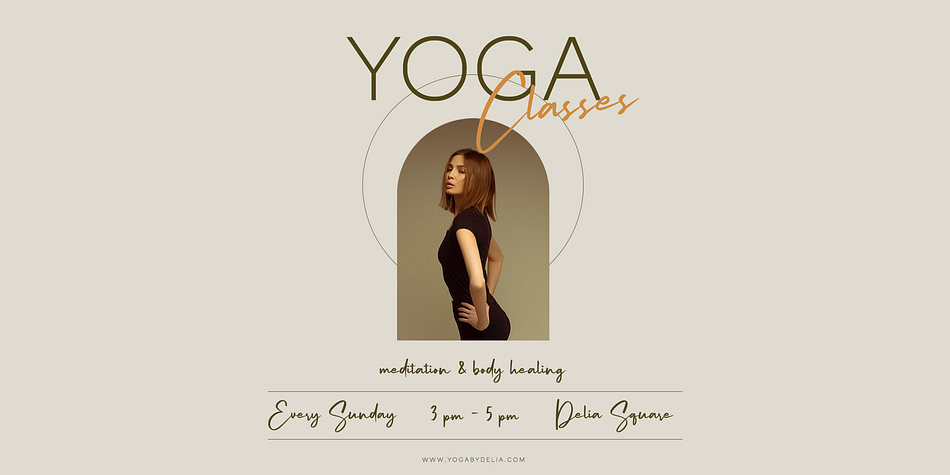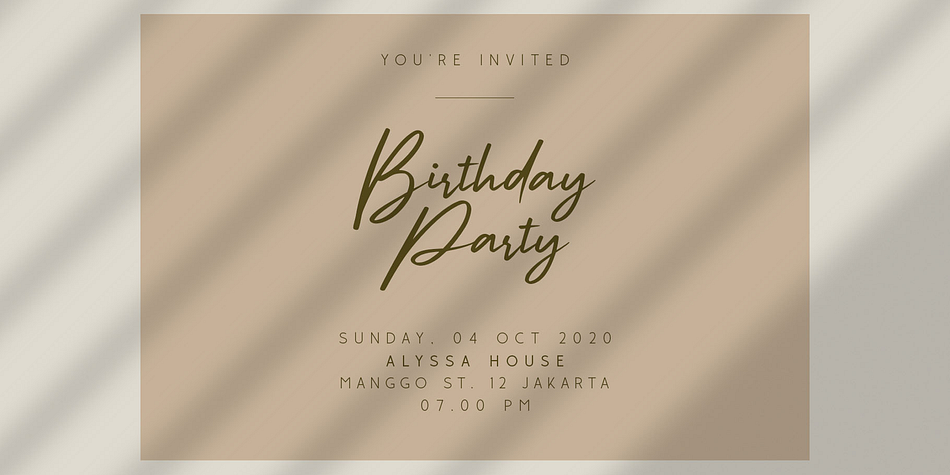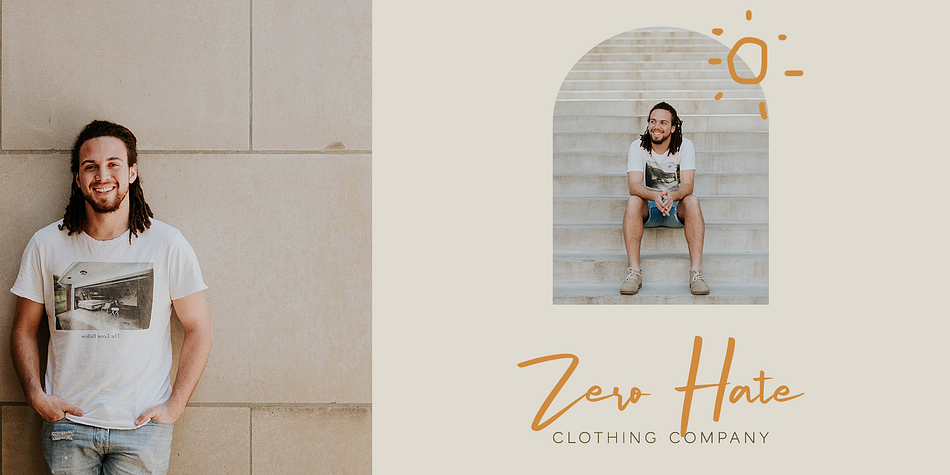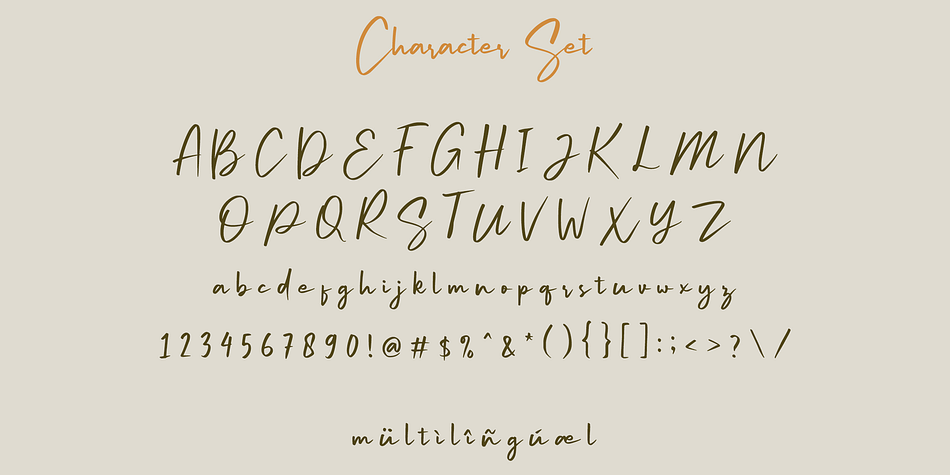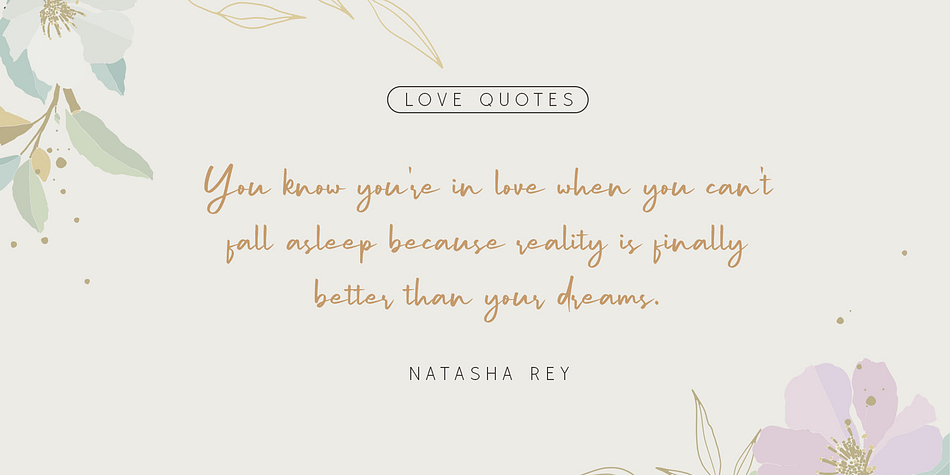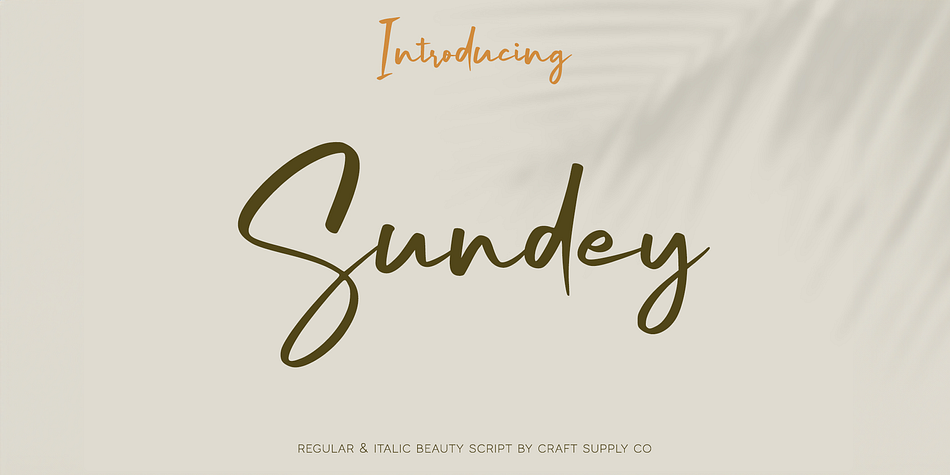
Sundey
Sundey is a brush script font family. This typeface has two styles and was published by Craft Supply Co.
Introducing New Font : Sundey – Beauty Script Font
Sundey – Beauty Script Font is an handwritten script font based on the expression of real handwriting. Cattus – Modern Casual Script will work perfectly for fashion, e-commerce brands, trend blogs, wedding boutiques or any business that wants to appear upscale and chic.
Sundey – Beauty Script Font also Suitable for Logo, greeting cards, quotes, posters, branding, name card, stationary, design title, blog header, art quote, typography, art, modern envelope lettering or book design, happening style like handdrawn design or watercolor design theme, craft design, any DIY project, book title, or any purpose to make your art/design project look pretty and trendy.